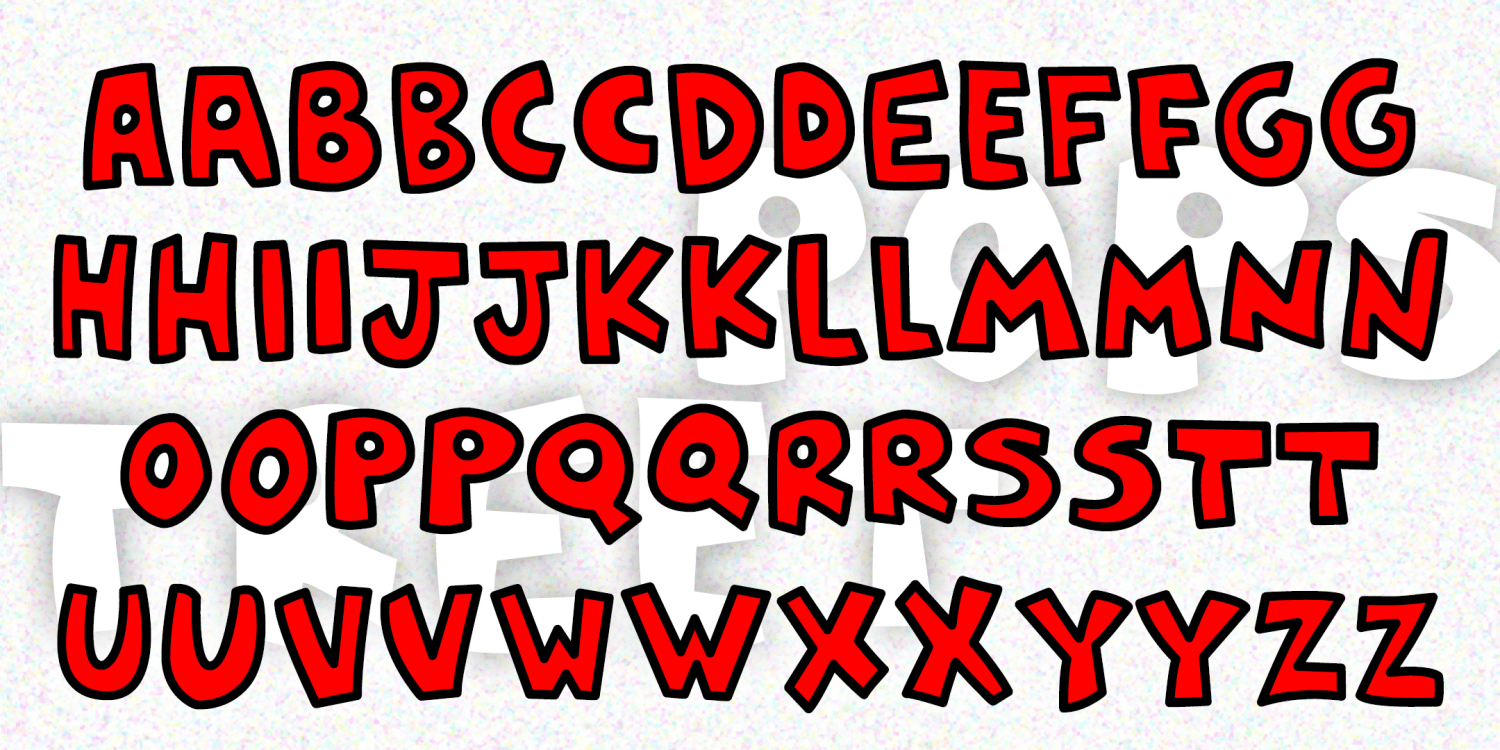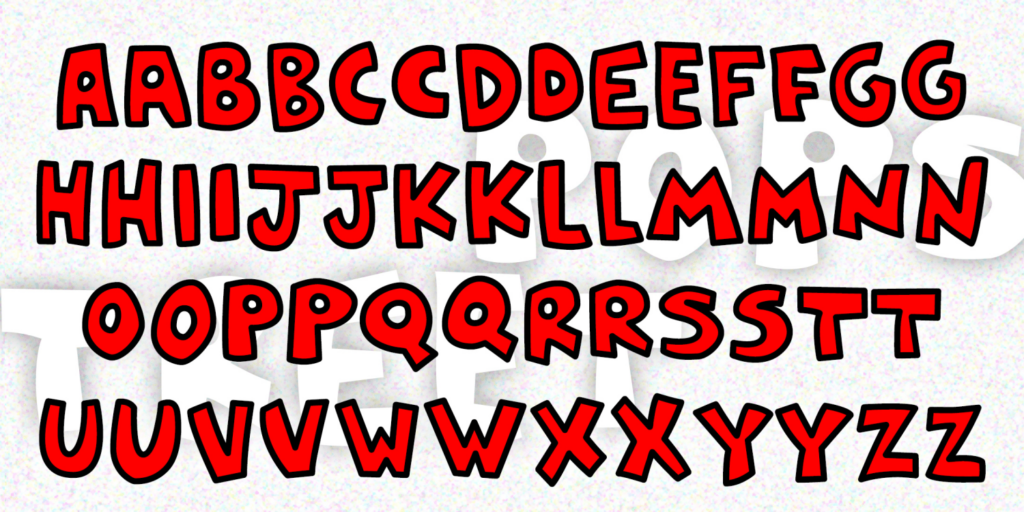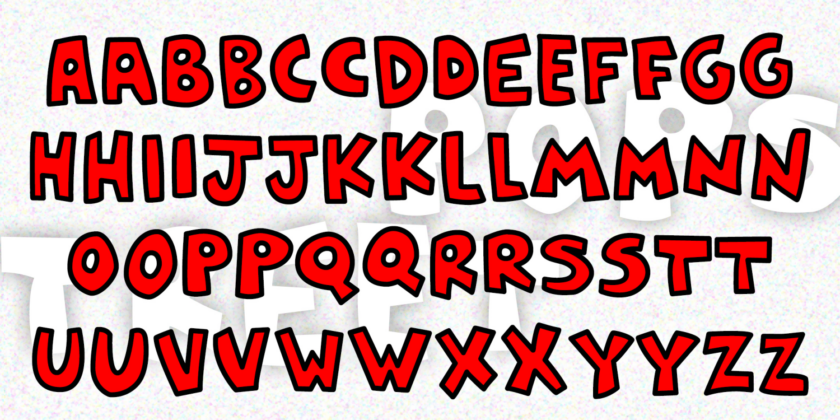
About Popstreet
POPSTREET is a pair of fonts inspired by the work of Keith Haring (1958-1990) whose work referenced both Pop and street art. Haring first became known for his graffiti drawings done in the subway, but was also respected for his gallery work and public…